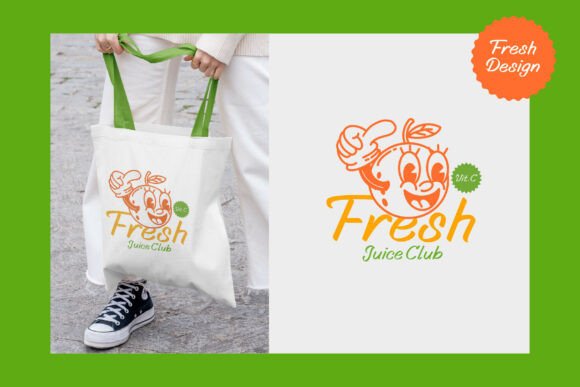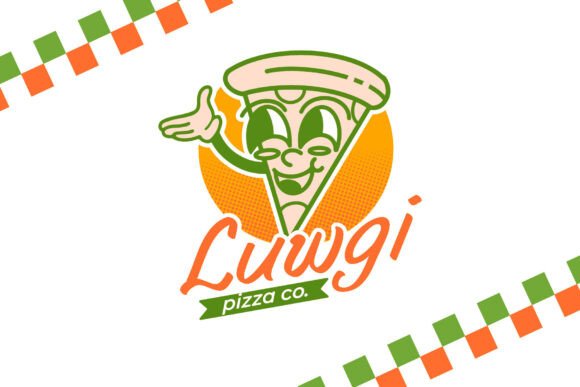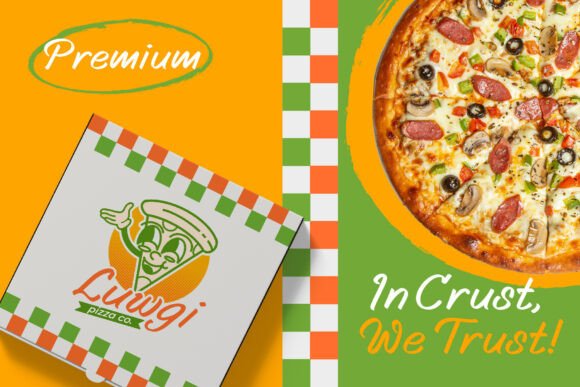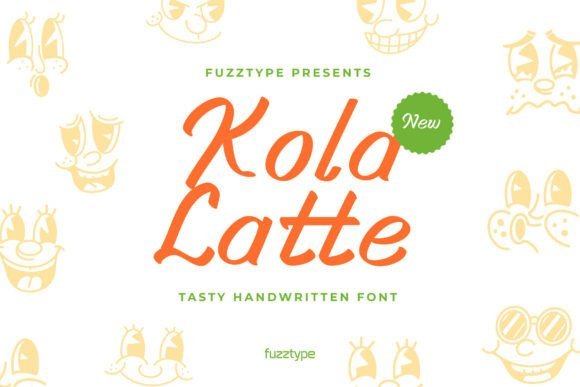
Introduction to Kola Latte Font
Kola Latte – a captivating handwritten font.
Its inspiration stems from the organic, flowing lines of hand-drawn elements, making it an ideal choice for a diverse range of designs Whether you’re working on a logo with a retro cartoon vibe or creating a playful food menu typography, Kola Latte lends a unique touch with its rounded and versatile aesthetic.
Key Features of Kola Latte Font
Why Choose Kola Latte Font?
Kola Latte Font offers exceptional quality and versatility, making it a valuable addition to your design toolkit. Whether you’re creating for personal projects or commercial use, Kola Latte Font delivers professional results.